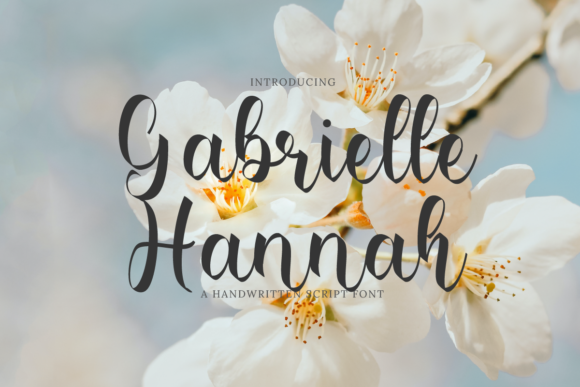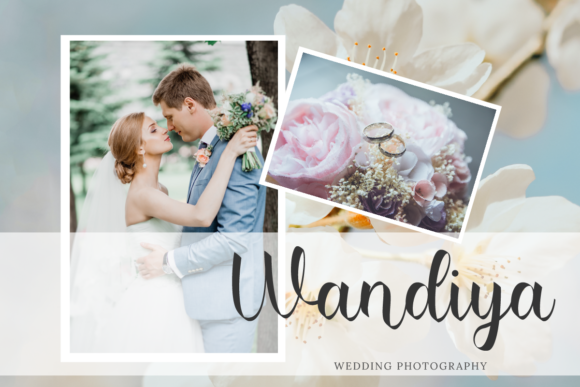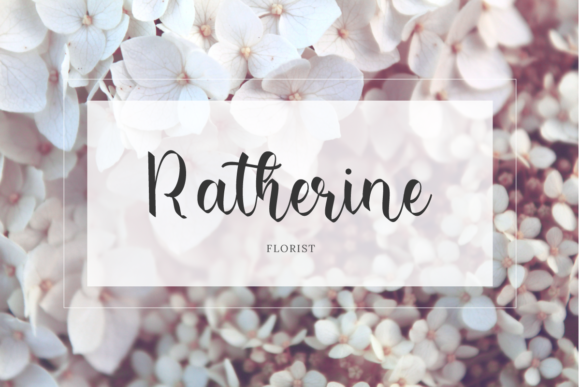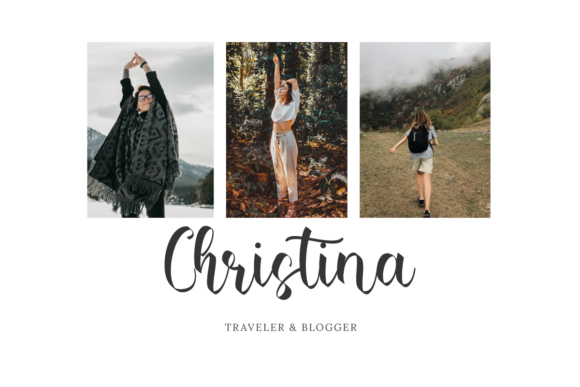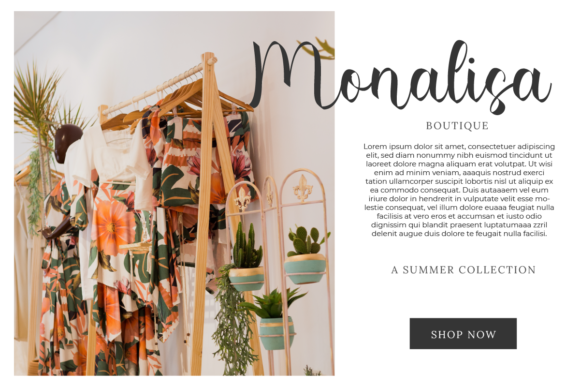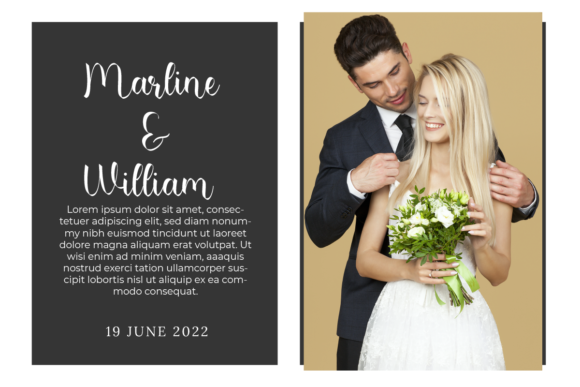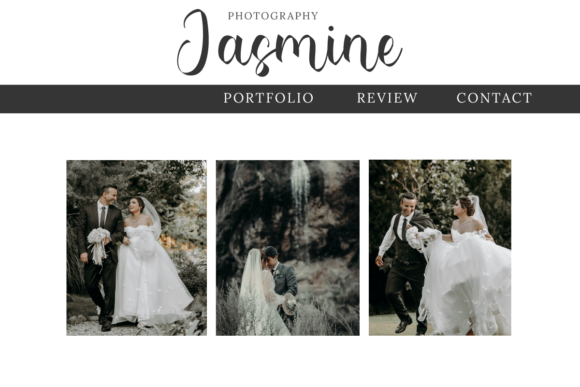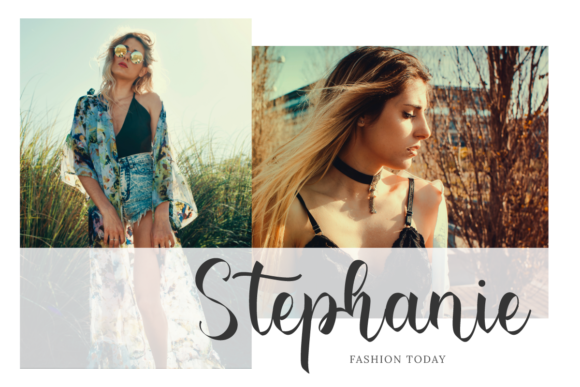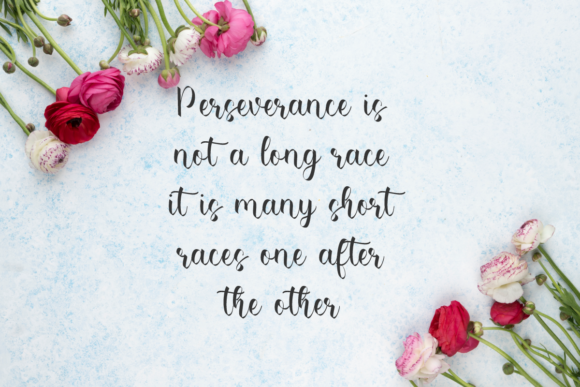
Gabrielle Hannah Font
About Gabrielle Hannah Font
Gabrielle Hannah is a lovely, elegant and unique script font. Fall for its ravishing style and use it to create gorgeous wedding invitations, beautiful stationary art, eye-catching social media posts, and much more!